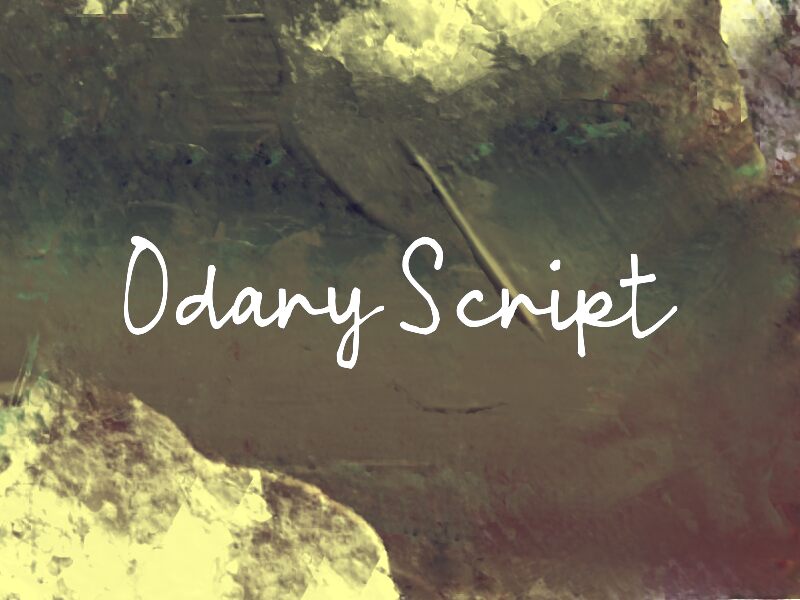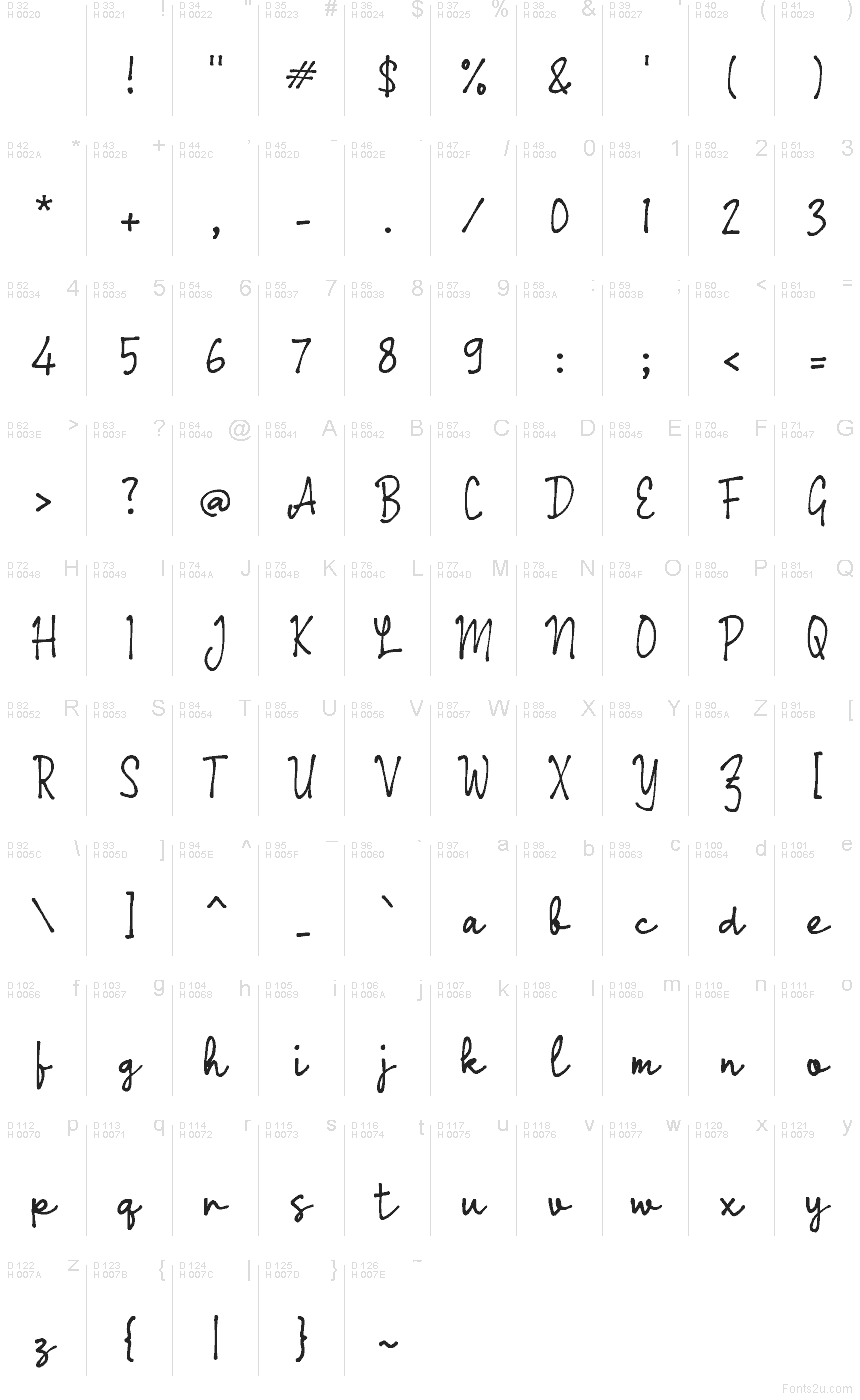
Odary Script
Odary Script font by wep is a free handwritten script typeface that solves the “too cute or too messy” brush-lettering problem. Its smooth, monoline strokes feel like ink from a fine-tip pen—casual and a bit bouncy, but still clean enough to read at a glance. The gentle slant and loose connections give layouts a relaxed, human touch without looking childish or overdone.
Using Odary Script, you can bring warmth to logos, signatures, quote graphics, packaging, social posts, greeting cards, and lifestyle blogs. This free font shines when set a bit larger, where its subtle wobble and airy spacing can breathe. Pair it with a simple sans serif for body copy to keep the handwriting feeling fresh and grounded.